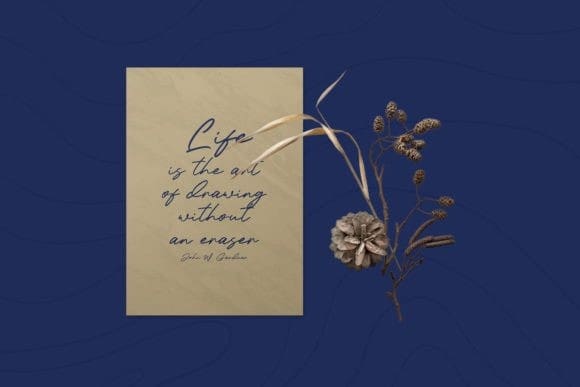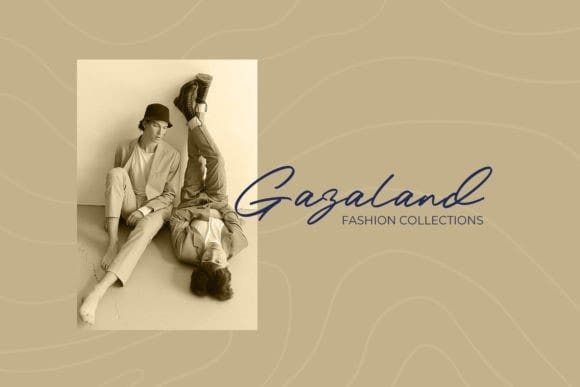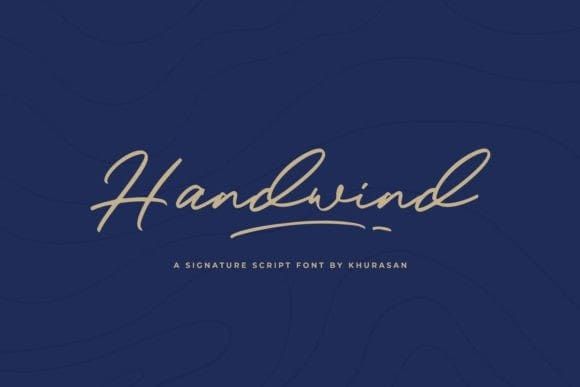
Handwind Handwritten Font
Handwind Handwritten Font is a clean, stylish, modern, and elegant script font perfect for posters, logos, magazines, book covers, banners, and many more! Get this amazing font, and use it to create lovely designs. It can easily be matched to an incredibly large set of projects, so add it to your creative ideas and notice how it makes them stand out!